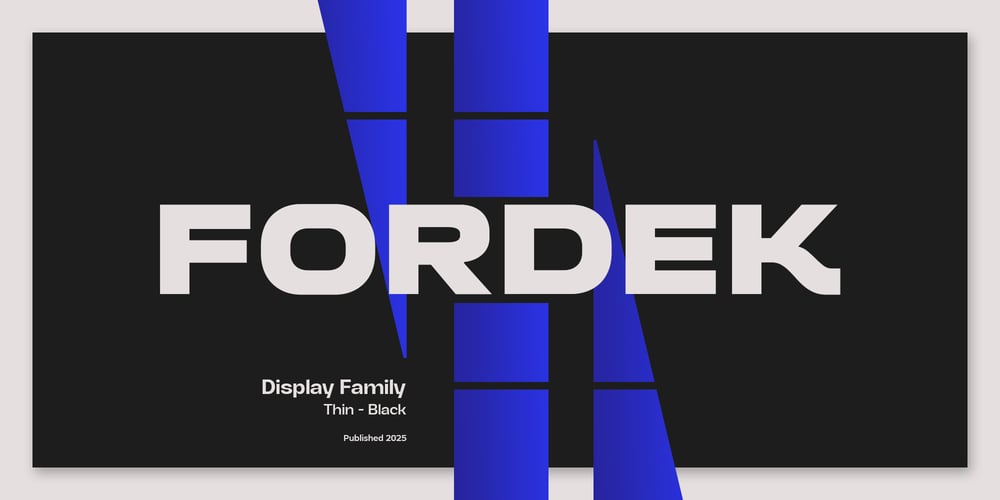
Fordek Font Family was designed by Wildan Suprian Syah and published by Isolatype. Fordek contains 18 styles and family package options. The Fordek font is inspired by the gemotric square, which blends elements of classic and futuristic elements, creating a fresh and charming look. Even though it looks modern, Fordek still has an elegant and polite side. The blend of modern, futuristic, and elegant auras makes it suitable for contemporary designs. The Fordek font has nine weights, alternate, and ligature options that will enhance the look of the design with a deep impression.